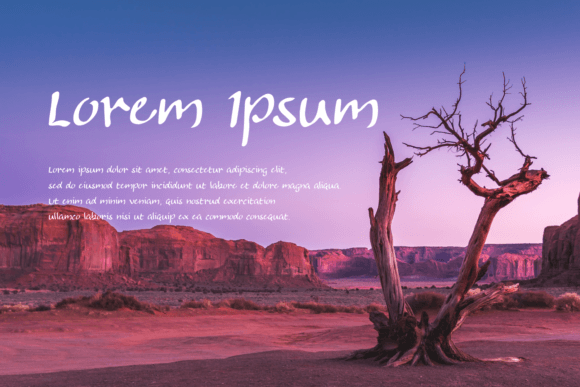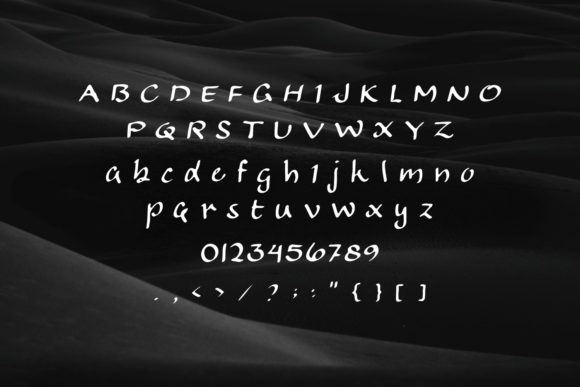
Caligrhypt Font
The Caligrhypt Font Download is a fun and quirky handwritten script created to add freshness and charm to your designs. With its casual curves and contemporary style, it feels both playful and professional. Because of its versatile character, Caligrhypt is perfect for branding, invitations, posters, packaging, and digital projects.
A Quirky Handwritten Script with Style
Caligrhypt stands out with its unique personality and modern look. Unlike plain handwritten fonts, this Caligrhypt script font blends creativity with readability. As a result, it is suitable for projects where originality and clarity must work together.
Handwritten fonts make invitations and cards feel personal. The Caligrhypt Font is an excellent choice for wedding stationery, birthday cards, and thank you notes. Moreover, its quirky details add a touch of fun, making designs more memorable.
Branding and Packaging with Caligrhypt Font
Typography helps build strong brand identity. The Caligrhypt handwritten font works well for boutique logos, product packaging, and promotional materials. In addition, it gives businesses a lively and modern personality that connects with audiences.
Posters, Titles, and Display Designs
Large projects need fonts that are eye-catching yet stylish. The Caligrhypt Font Download performs beautifully in posters, flyers, and magazine covers. Therefore, it is a great option for display designs that need to capture attention instantly.
This font is also perfect for online platforms. For example, the Caligrhypt typeface integrates seamlessly with Instagram posts, Pinterest graphics, YouTube thumbnails, and blogs. Because of its playful energy, it helps digital content stand out in crowded spaces.
Why Designers Choose Caligrhypt Typeface
Designers love fonts that combine character with flexibility. Many handwritten scripts lose readability at smaller sizes, but the Caligrhypt handwritten script remains clear while keeping its quirky charm. This balance makes it a reliable choice for creative professionals and hobbyists.
Add Fresh Energy to Your Work Today